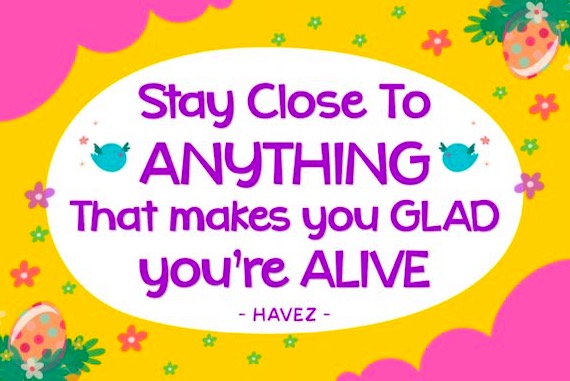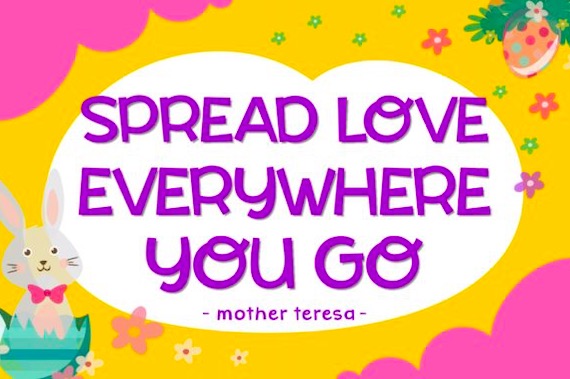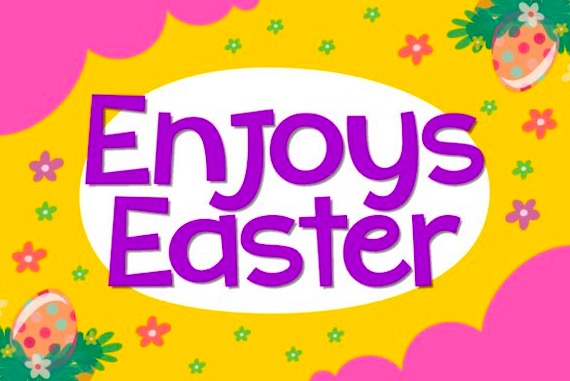
Enjoys Easter Font is an elegant modern display typeface that was designed and shared by Keithzo (7NTypes). This stunning font will turn your creative ideas into great true standout design products.
Enjoys Easter Display Font